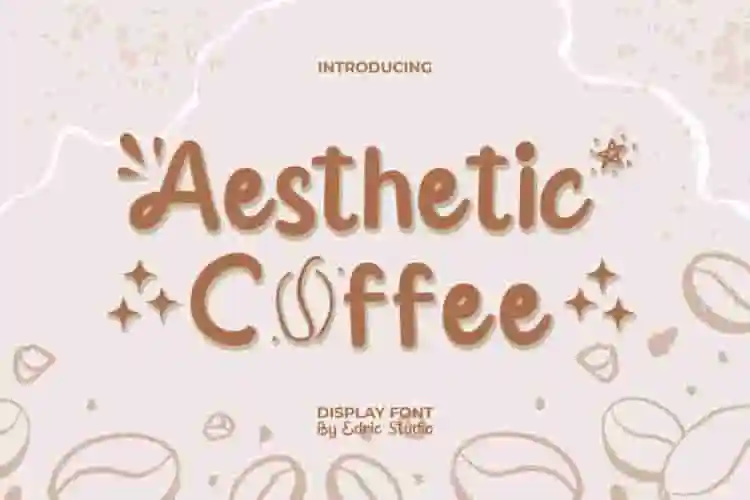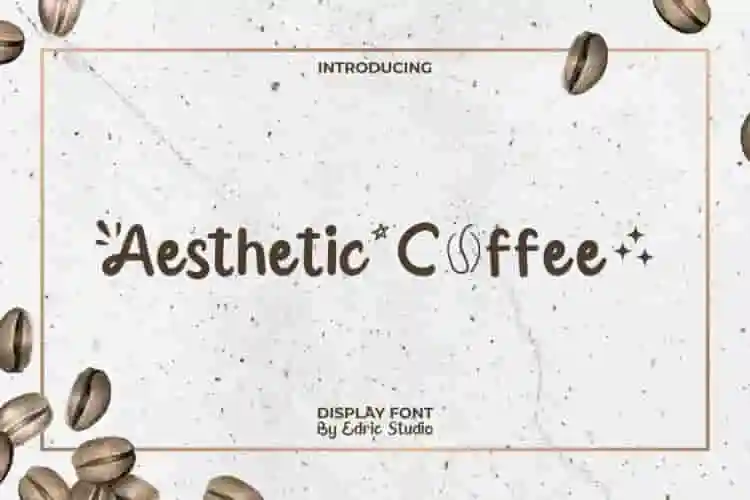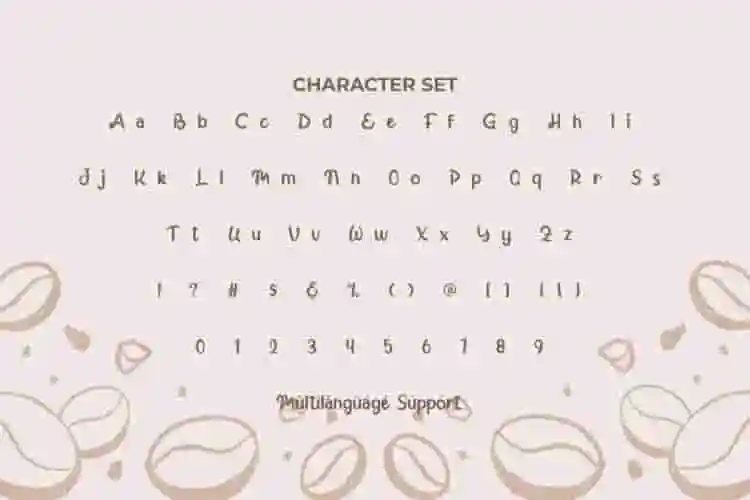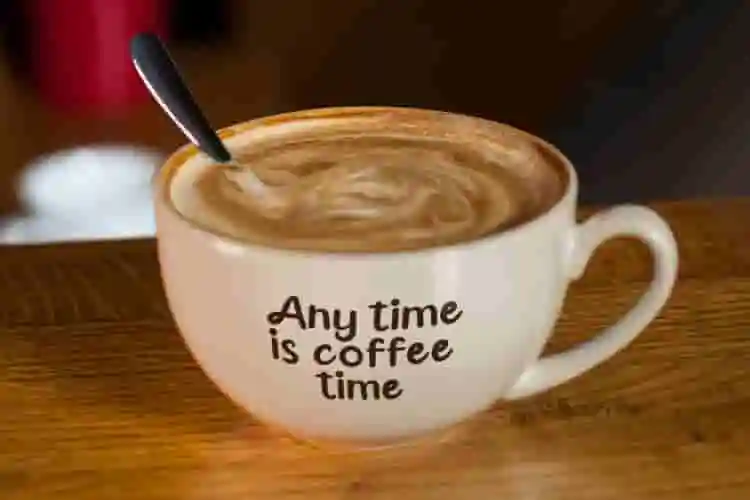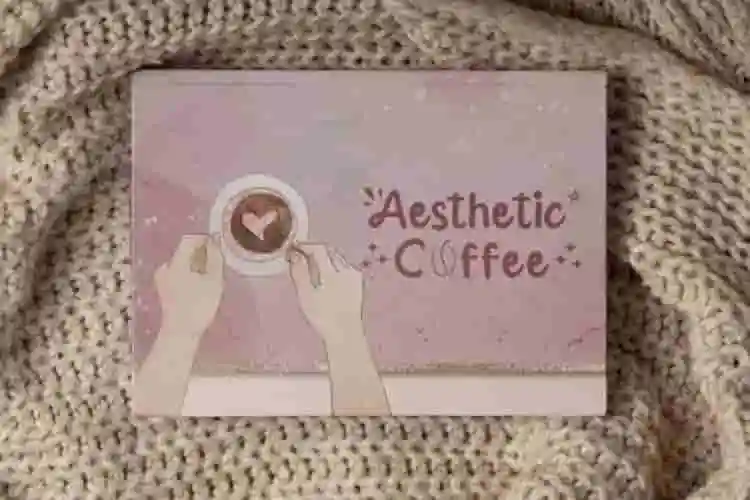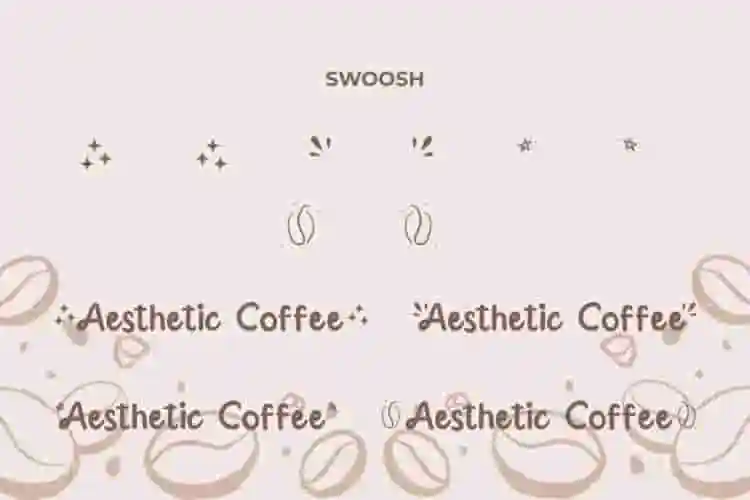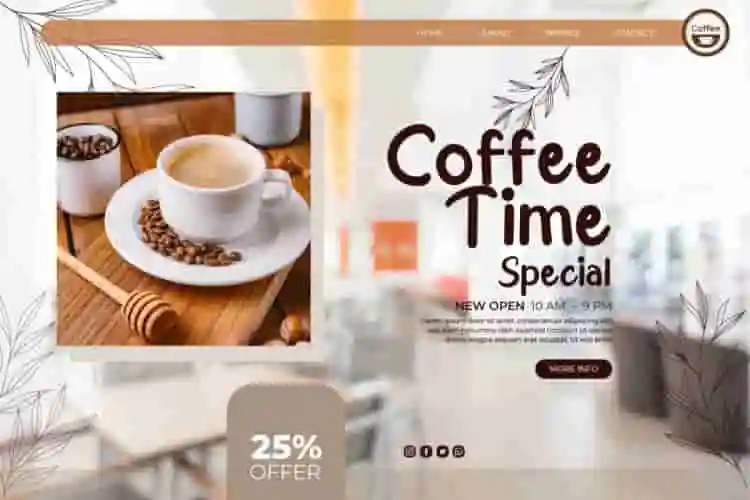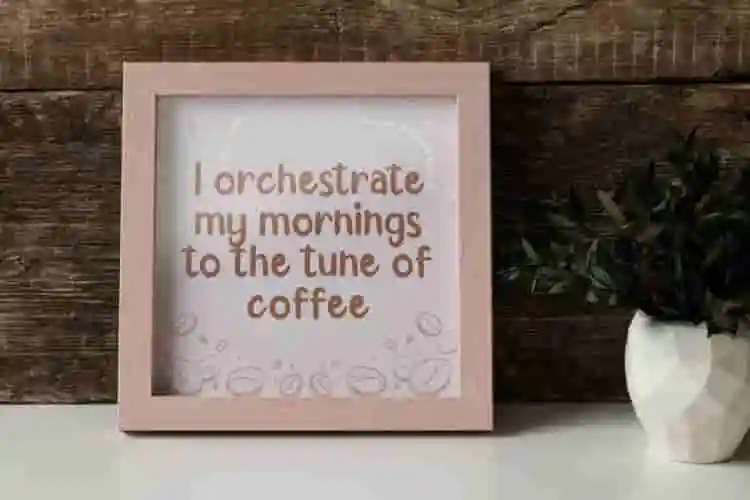
Aesthetic Coffee Display Font
Aesthetic Coffee Font is a playful decorative display font inspired from the addicted delicious coffee. In accordance with its name ‘aesthetic’, this font shows the art of beautiful coffee decorations and will suit any industry, such as accessories, advertisement, bakery and cake shop, café, content creator, entertainment, event or festival, handicraft, printing, publishing, pottery, restaurant, and much more.
Aesthetic Coffee Font comes with full set of Uppercase and Lowercase Basic Characters, Number, a large range of Punctuation, Symbol, and Swoosh. It has a stunning characters set, perfectly managed with well spaced and kerning. Aesthetic Coffee Font will be able to complement for any project (with extended license) including: brand logo, brochure, catalogue, cover, flyer, greeting card, header, label, menu pamphlet, packaging design, poster, quotes, screen print, signage, stationery, sticker, title, website, etc.
Introducing Aesthetic Coffee, a charming display font brewed with style, warmth, and a touch of nostalgia. Inspired by handwritten café signs, cozy morning rituals, and minimalist aesthetics, this font brings a soft, stylish presence to any project.
Meet Aesthetic Coffee, a smooth and stylish display font that brings the feeling of slow mornings, warm brews, and thoughtful design into every letter. Inspired by handcrafted signage and vintage café menus, this font is made for creators who value authenticity, simplicity, and charm.
• Soft, Rounded Letterforms
• Vintage Meets Minimal